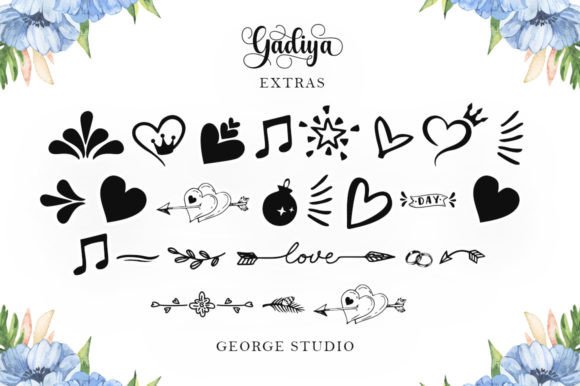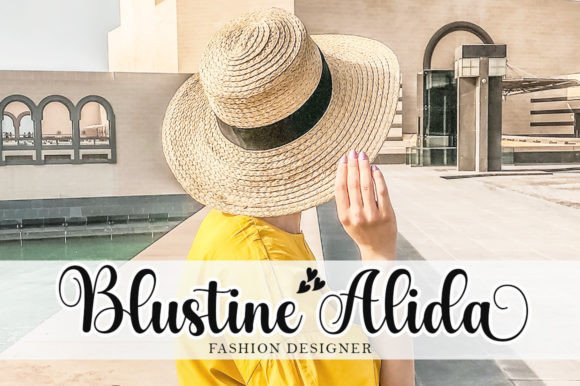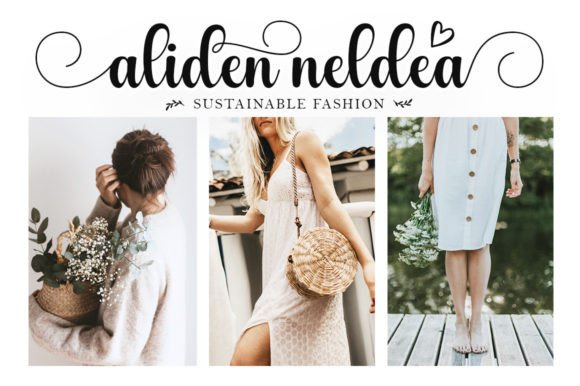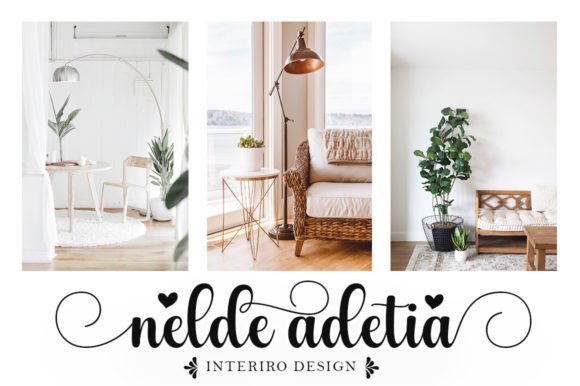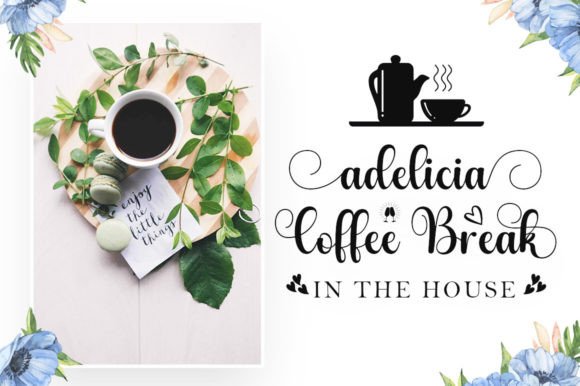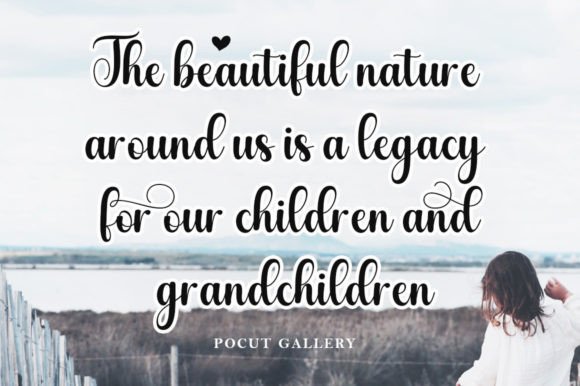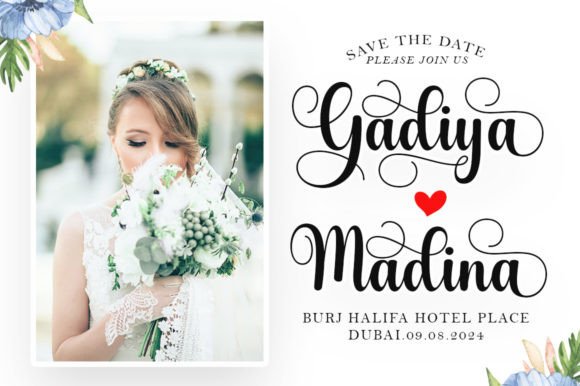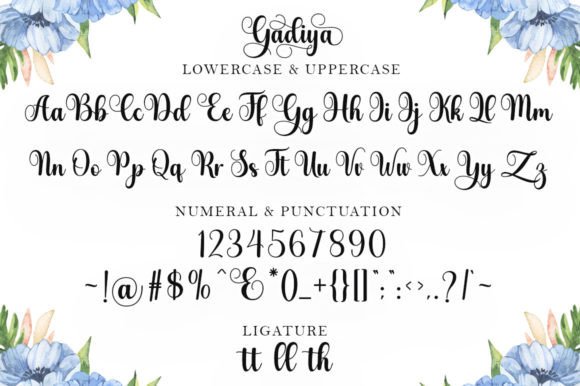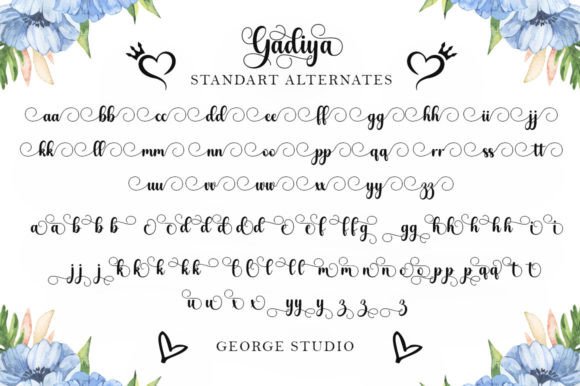
Gadiya Font
About Gadiya Font
“Gadiya” is a delicate, elegant, and flowing handwritten font known for its distinct and timeless style. This font is a versatile choice for a wide range of creative projects where you want to convey a sense of sophistication and elegance.
The charm of “Gadiya” lies in its delicate and elegant script. Its well-crafted characters create a visually captivating and refined experience, making it an ideal choice for projects that aim to convey a sense of beauty, grace, and timelessness.
One of the standout qualities of “Gadiya” is its adaptability. Whether you’re using it for digital design, crafting beautiful invitations, creating stunning logos, or enhancing the typography of your projects, this font seamlessly integrates into your creative vision.
This font’s dedication to providing a delicate and elegant look to your projects sets it apart. Whether you’re working on personal or professional endeavors, “Gadiya” brings a sense of refinement and sophistication to your work that resonates with a diverse audience.
In summary, “Gadiya” is more than just a font; it’s a delicate and versatile creative tool that can elevate the look of your projects with its elegant and flowing script. Whether you’re a professional designer seeking a font that adds sophistication to your designs or an enthusiast passionate about crafting and design, “Gadiya” is here to make your projects shine with a distinct and timeless touch. Embrace the elegance of “Gadiya,” and watch your creativity flourish with spectacular and refined designs.